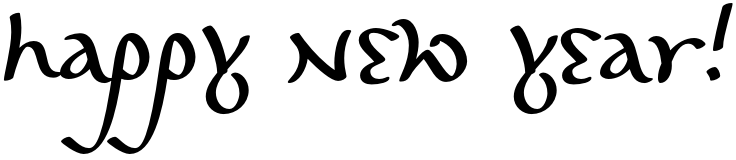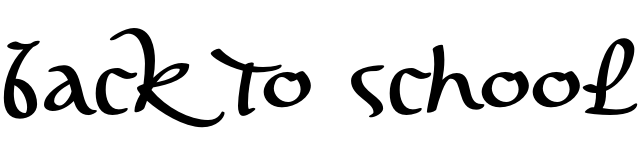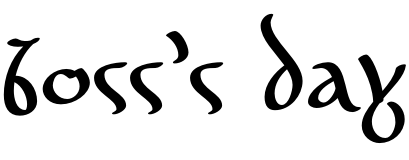
Associations for font Hajdamaka RegularFont personality and character:
historical, craft brewed, man-made, hempen, flexible, homespun, rustic, dashing, agile, fast, cheeky, warlike, daring, dynamic, original, freewheeling, plastic, ethnic, natural, traditional, heroic, ancient, Cossack, free, hurried, picturesque, alive, temperamental, motivating, active, organic, impetuous, tribal, cheerful, dancer, musical, poetic, lyrical, vegetable, presents, Artisanal, quick, sweeping, Soft
souvenir, bread, bath, honey, history, battle, literature, cinema, vodka, alcohol, reconstruction, folklore, music, dance, chronicle, Cossack, hetman, chieftain, spice, poetry, lyrics, flowers, holiday, embroidered, tree, ethnography, nature, bank note, tourism, legend, graphics, illustration, landscape, food, decoration Font exhibits stylistic traits: